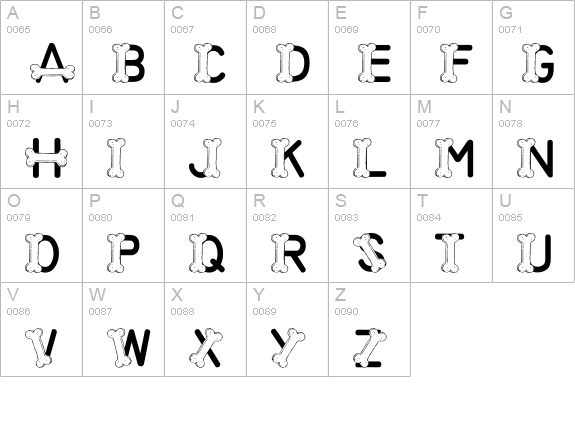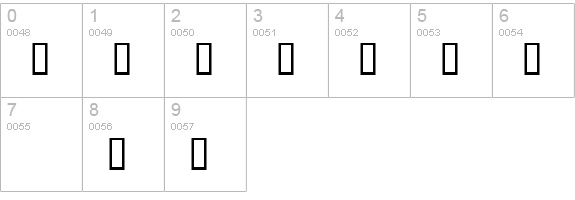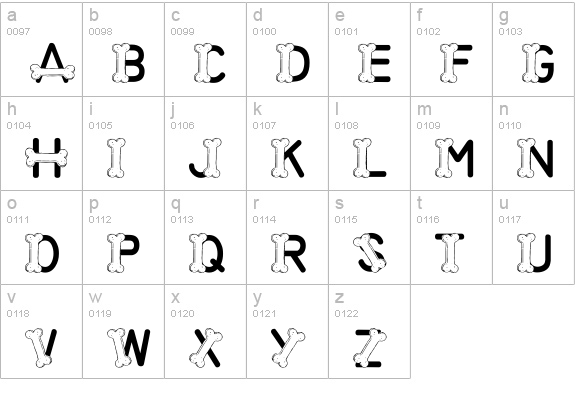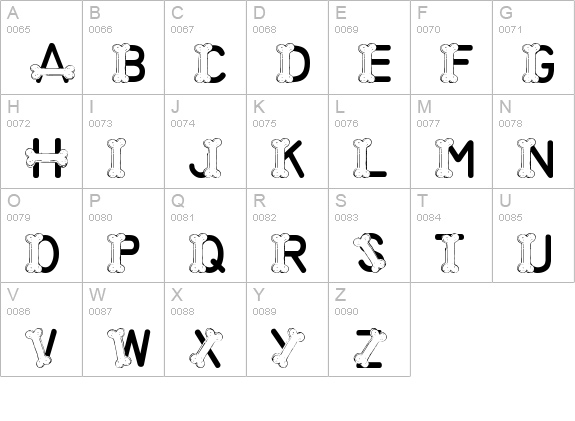
LMS This Font Is For The Dogs is a whimsical and playful font that exudes a sense of fun and friendliness. With its quirky and unique design, this font is perfect for adding a touch of charm to any project. Whether you're creating a poster, invitation, or social media graphic, this font is sure to make your text stand out. Best of all, LMS This Font Is For The Dogs is completely free to use! That's right, you can download this font for free at FontsMarket.com and start using it in your designs right away. So why wait? Add a touch of canine-inspired creativity to your projects with LMS This Font Is For The Dogs today!